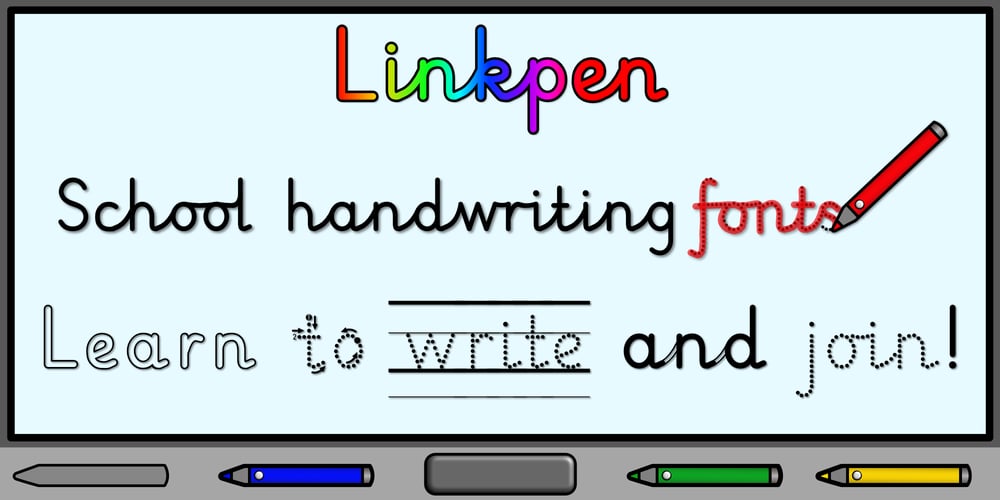
Linkpen Primary
Linkpen Primary font
Linkpen Primary Font Family was designed by Carol Cockeram and published by Linkpen Handwriting Fonts. Linkpen Primary contains 24 styles and family package options. Linkpen Primary is a font family for teaching handwriting. It is designed to be used by teachers and parents to help children or adult learners practice their handwriting, at home or at school. Linkpen Primary gives you endless possibilities for creating your own educational resources – worksheets, signs, labels, etc. – to appeal to your learners and get them interested and passionate about learning to write.This versatile font family contains 24 styles, each with special features that support learning to write. For ultimate flexibility, styles are available with and without guide lines, and in regular and italic versions. The styles can each be purchased separately or as a complete family value pack.The letter shapes have been designed to be clear, simple and easy to read.There are 12 print styles designed for beginners or younger children, to allow them to practice writing the letter shapes. The print fonts all come in Regular, Guide, Dotted, Dotted Guide, Outline, and Arrow styles, to give learners different ways to build their confidence creating the letter shapes.There are 12 Join fonts, for when your learners are ready to progress onto joined up handwriting. The Join fonts automatically join up as you type on your computer, tablet, or interactive whiteboard, producing beautiful, neat, clear joined up text for your classroom or home resources. The Join fonts come in Regular and Dotted styles, as well as a special Connect style which highlights the join between letters, to help your learners make the transition from printed writing to joined up.The Join fonts are created with OpenType Contextual Alternate rules, which ensure that the joins are always formed correctly, depending on the context of each letter within a word. Compatible with Microsoft Word and Publisher 2010 onwards (desktop version), SMART Notebook 18 onwards, Pages and Keynote for iOS, TextEdit for macOS, LibreOffice 6, Notepad for Windows, and Promethean ActivInspire Version 2.21 onwards.